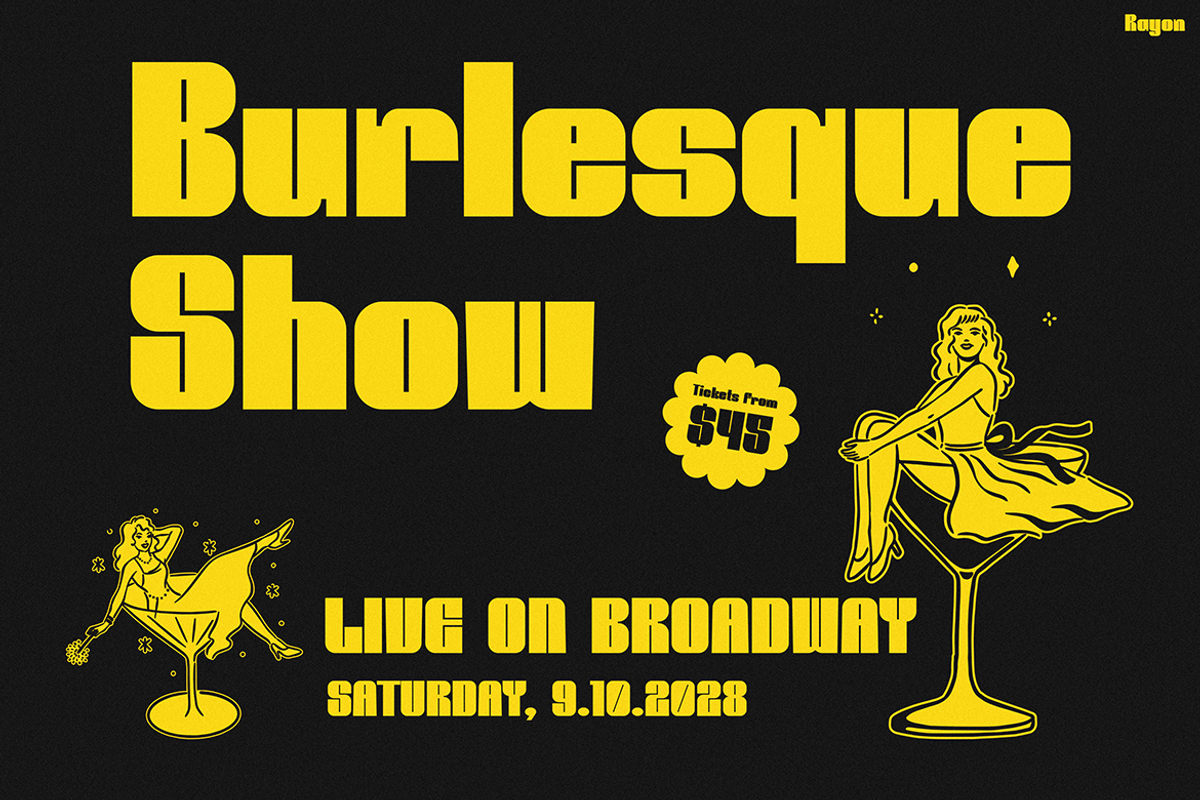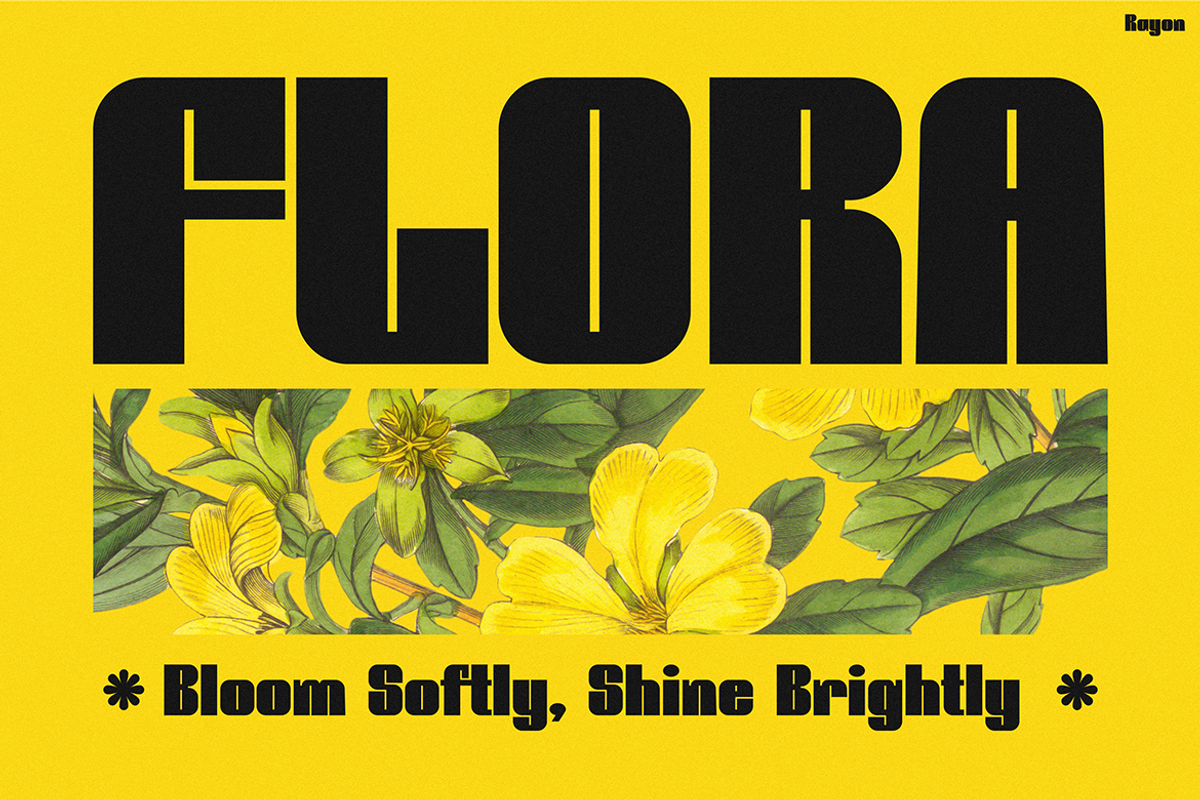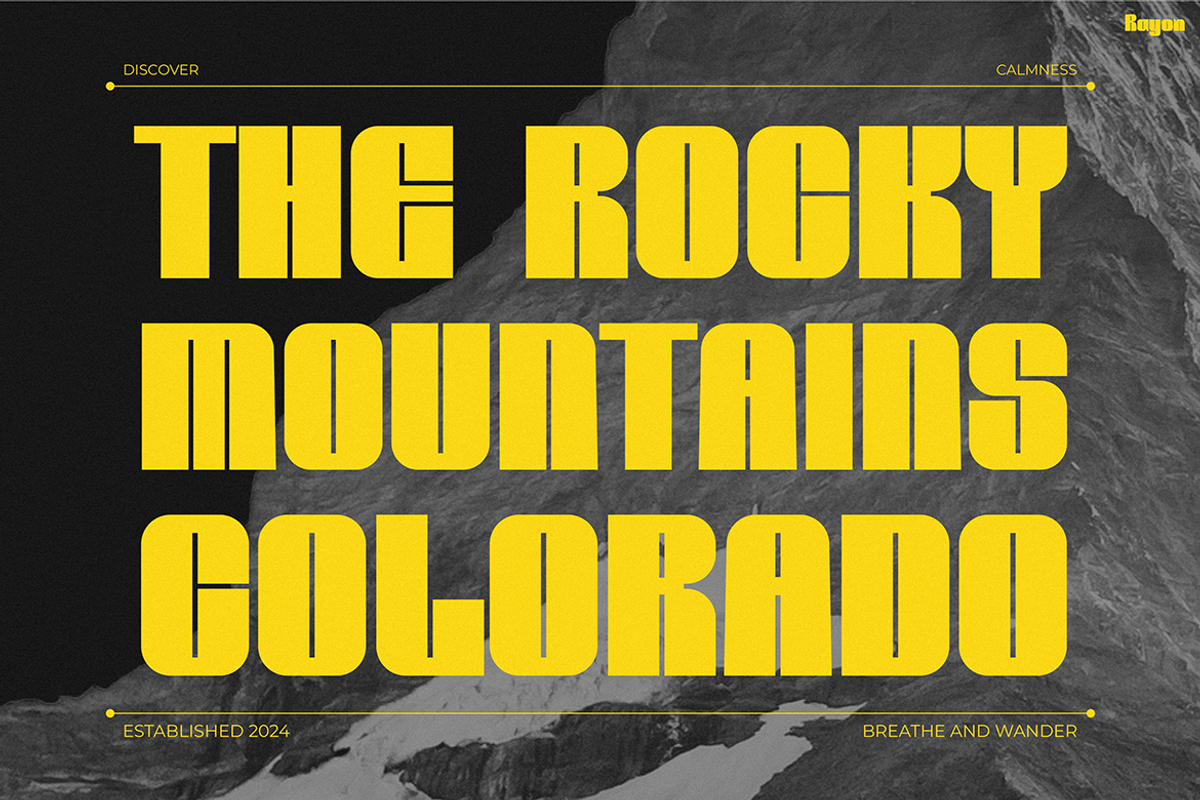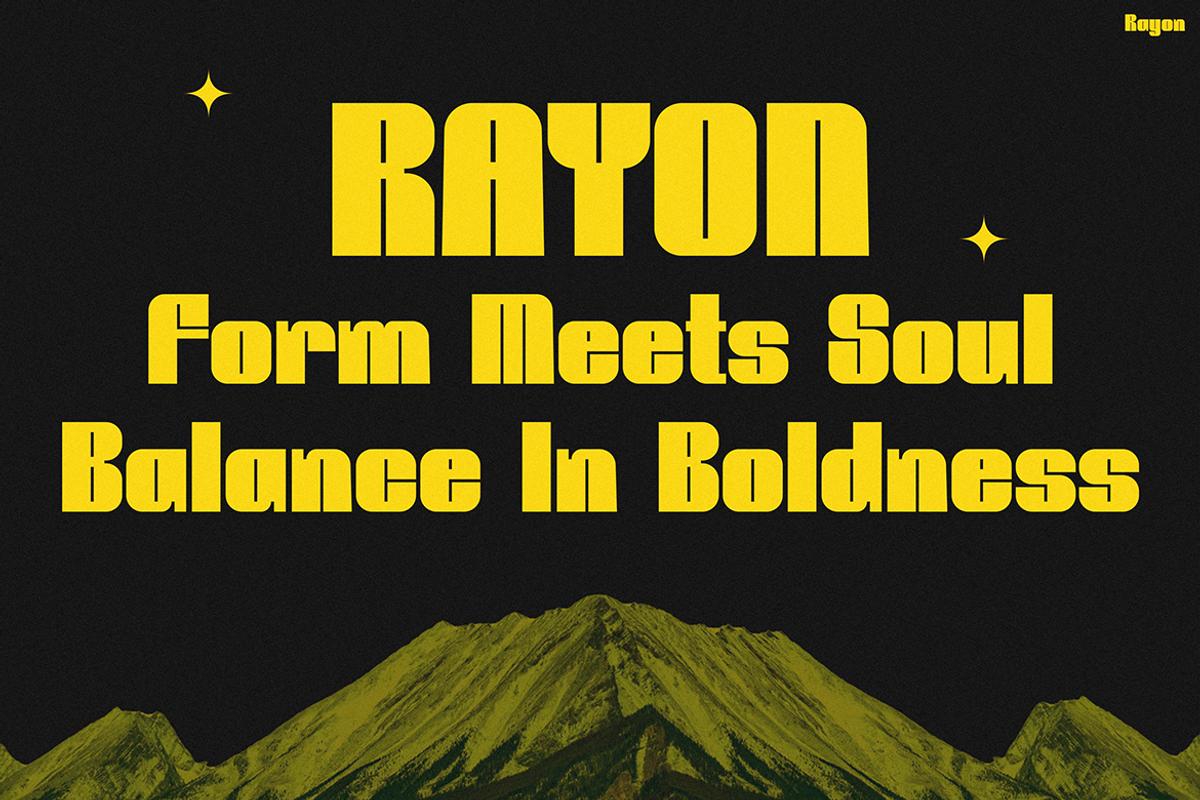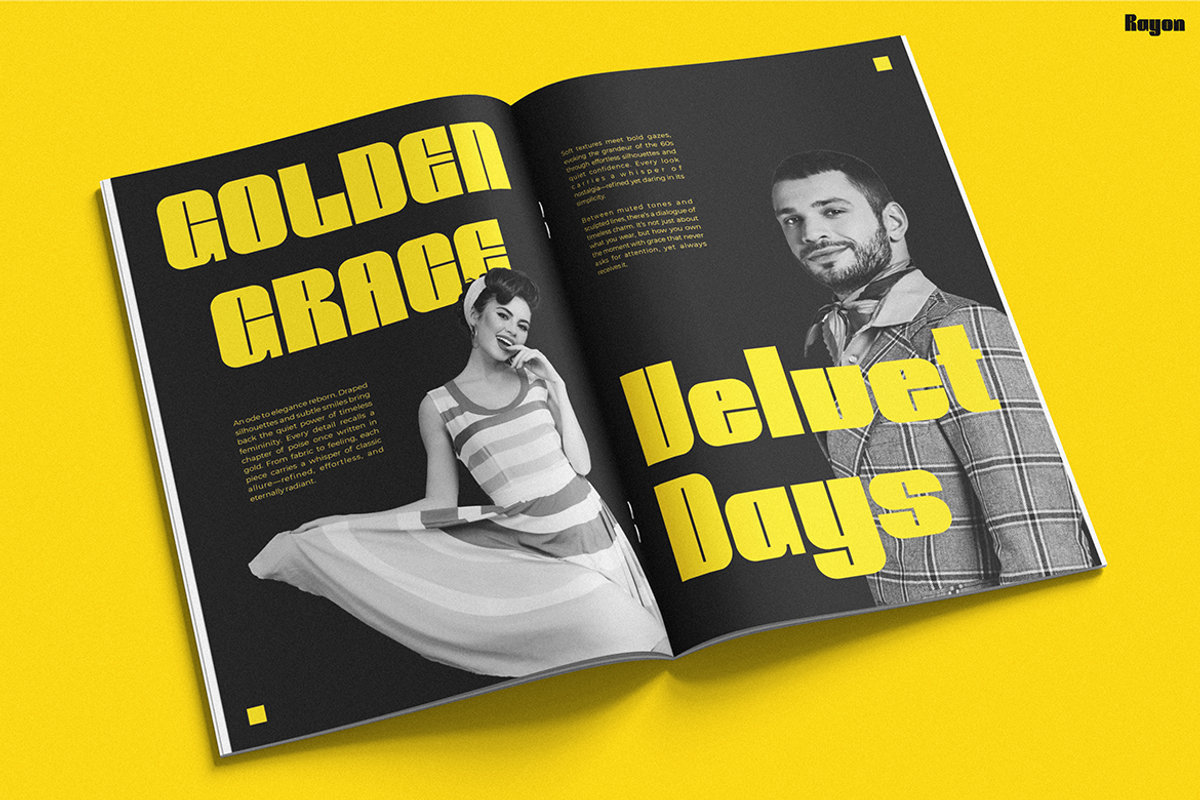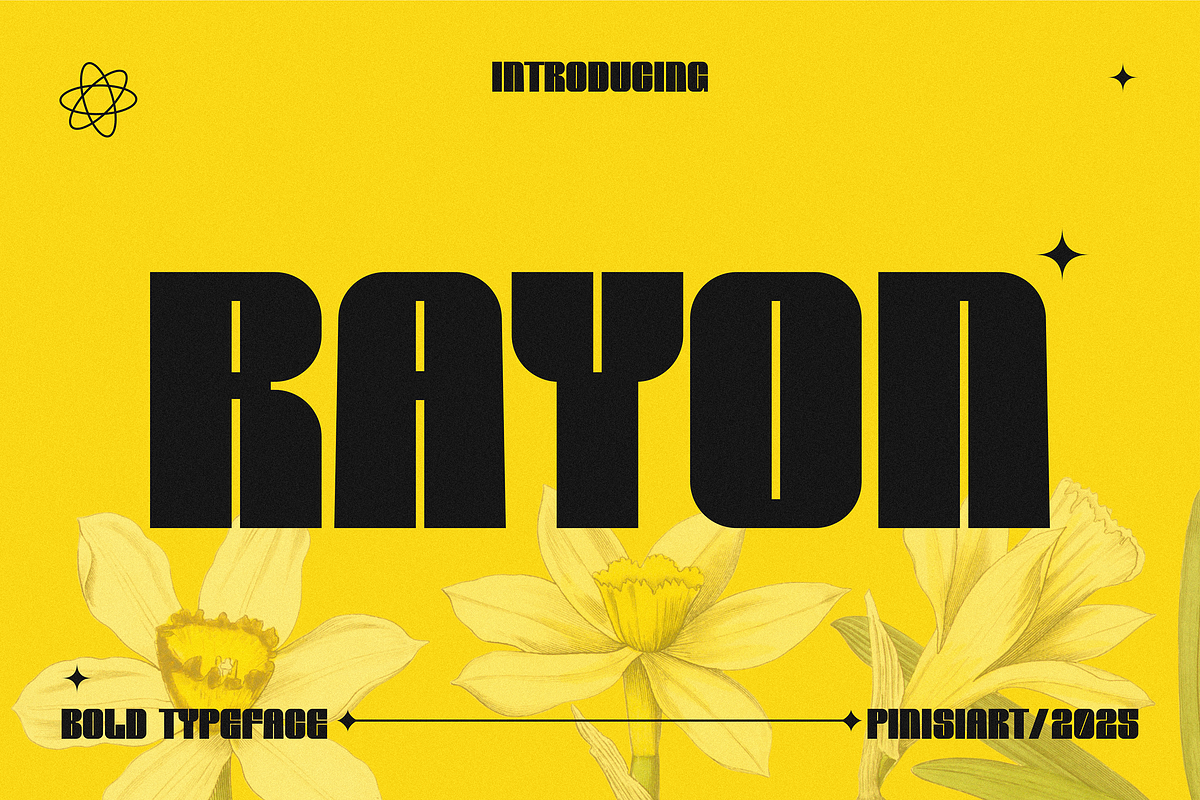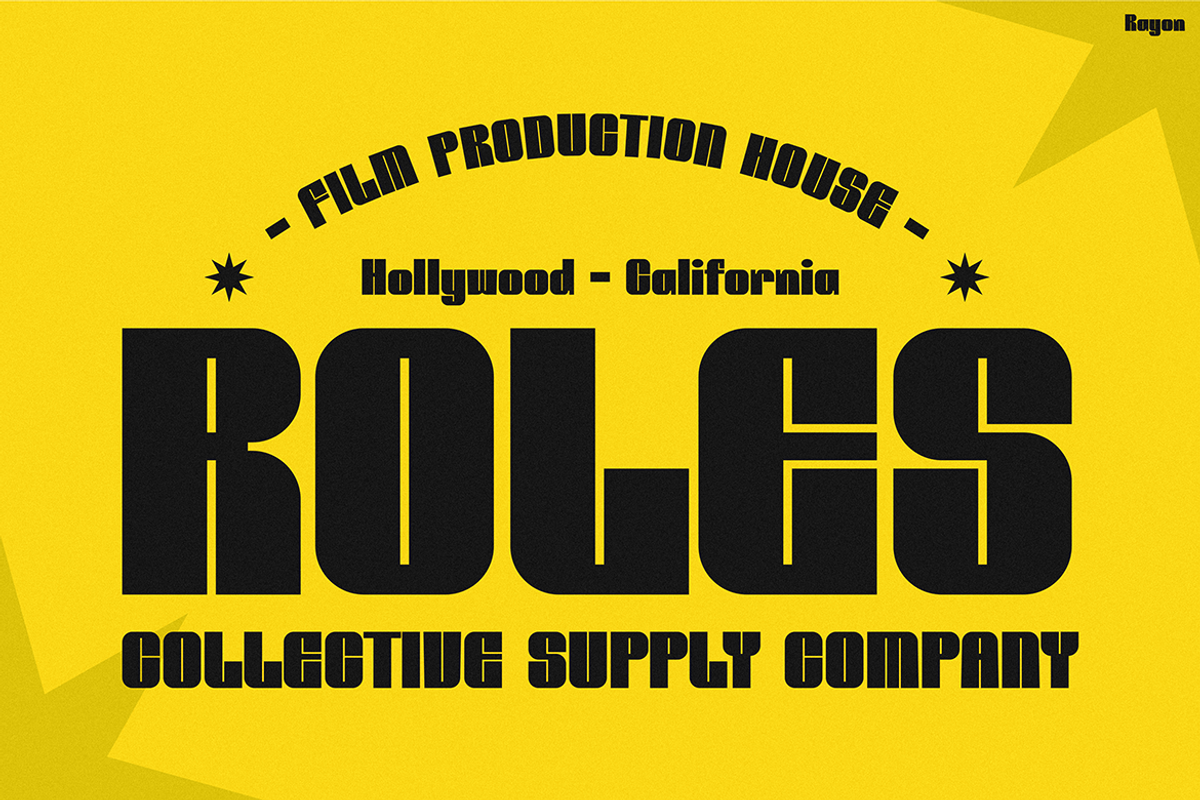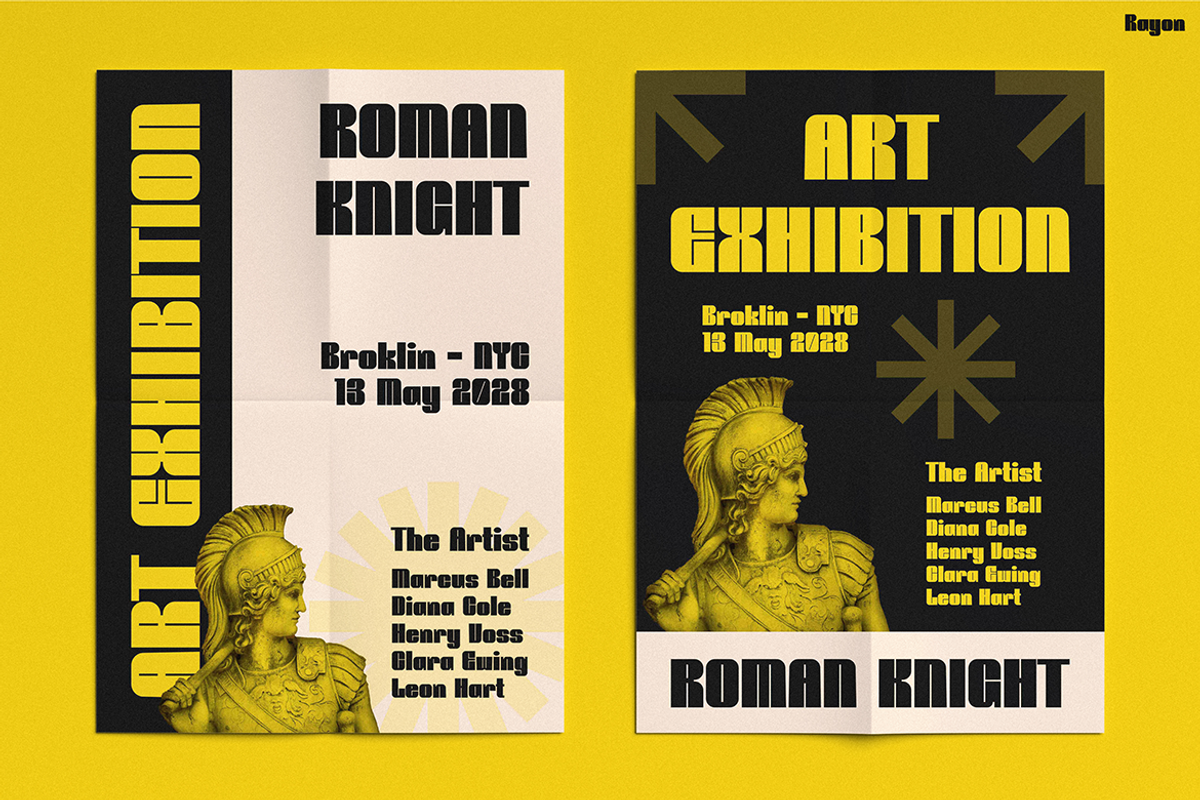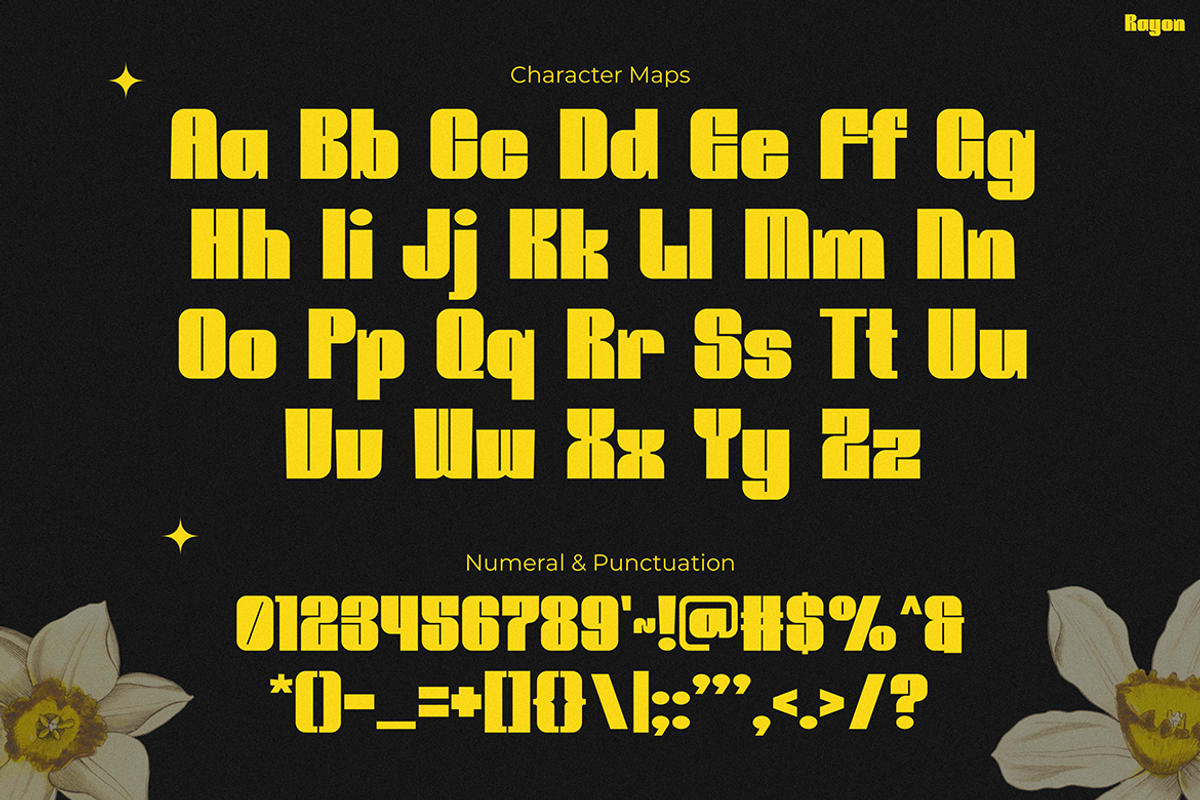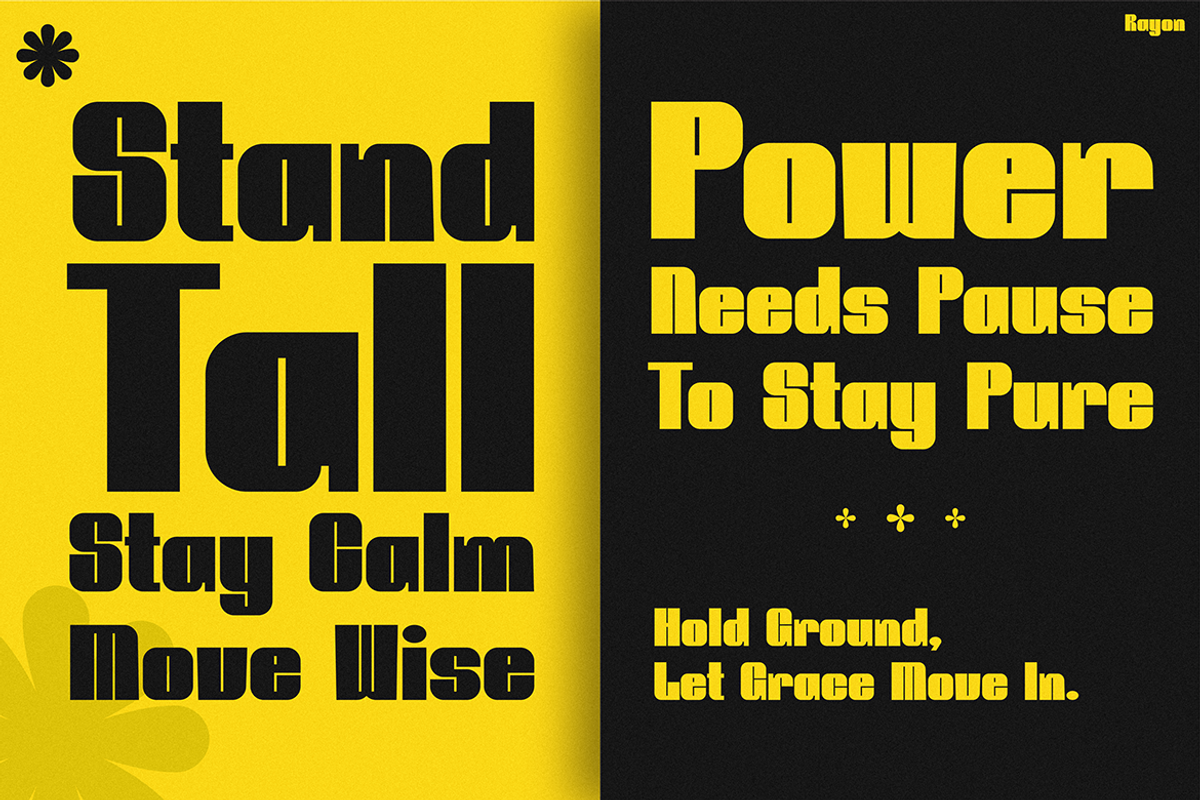
RAYON
Retro Font RAYON — Form Meets Soul, Balance in Boldness Retro Font RAYON is a striking display typeface that captures the perfect harmony between vintage nostalgia and modern boldness. Its chunky letterforms, smooth edges, and powerful geometric structure make it stand out instantly in any design. Inspired by mid-century typography and classic poster art, RAYON radiates a confident energy that turns simple text into visual statements. Every curve and contour of this typeface speaks with charisma, making it ideal for projects that need both strength and soul. What makes RAYON truly unique is its ability to blend retro aesthetics with a clean, contemporary twist. It feels familiar yet refreshing — like a modern revival of old-school typography. Its strong uppercase style and rounded terminals make it readable and visually balanced, while its dramatic weight variation creates a sense of rhythm and movement. Whether you’re designing a brand identity, editorial cover, or vintage signage, this font ensures your message will never go unnoticed.